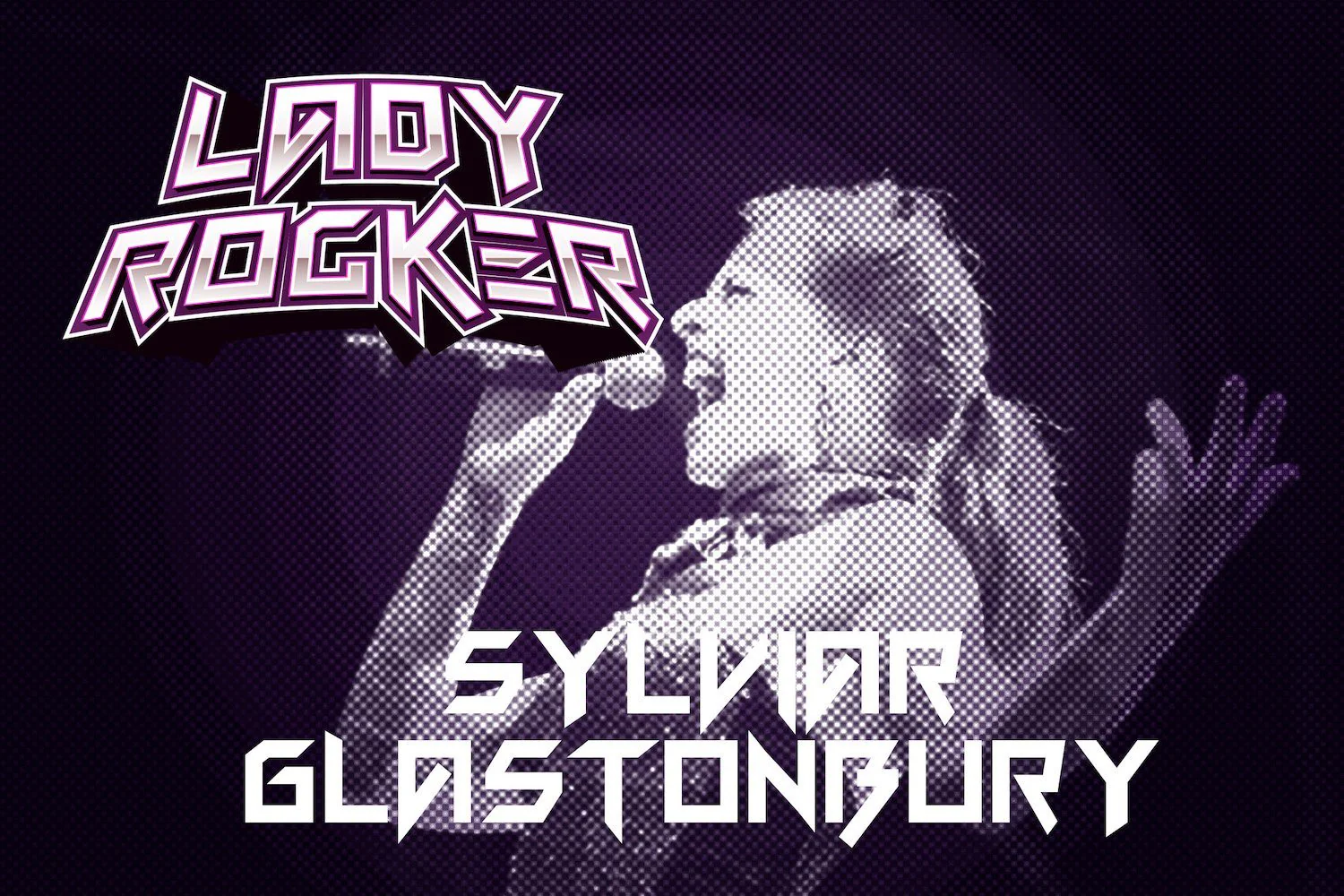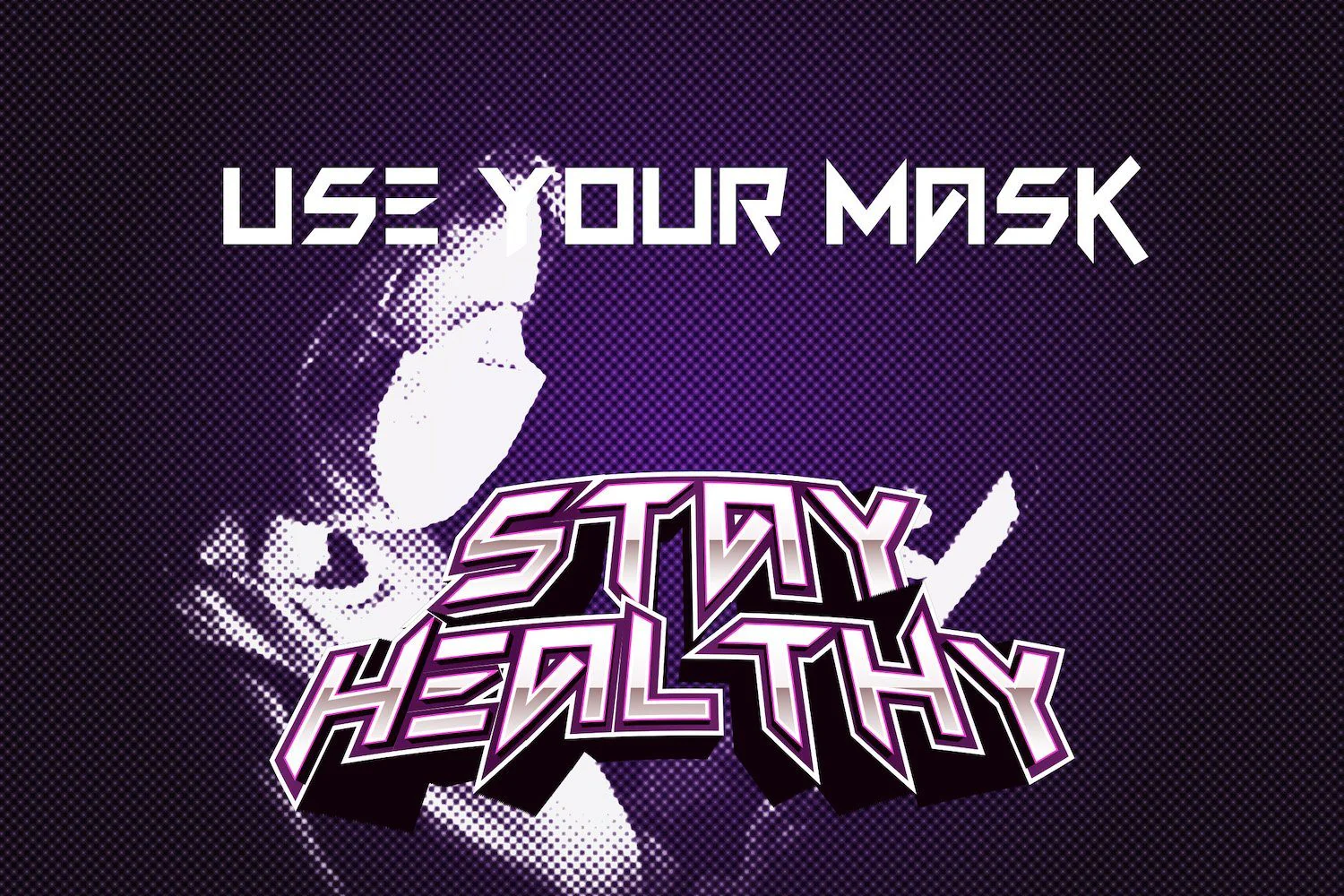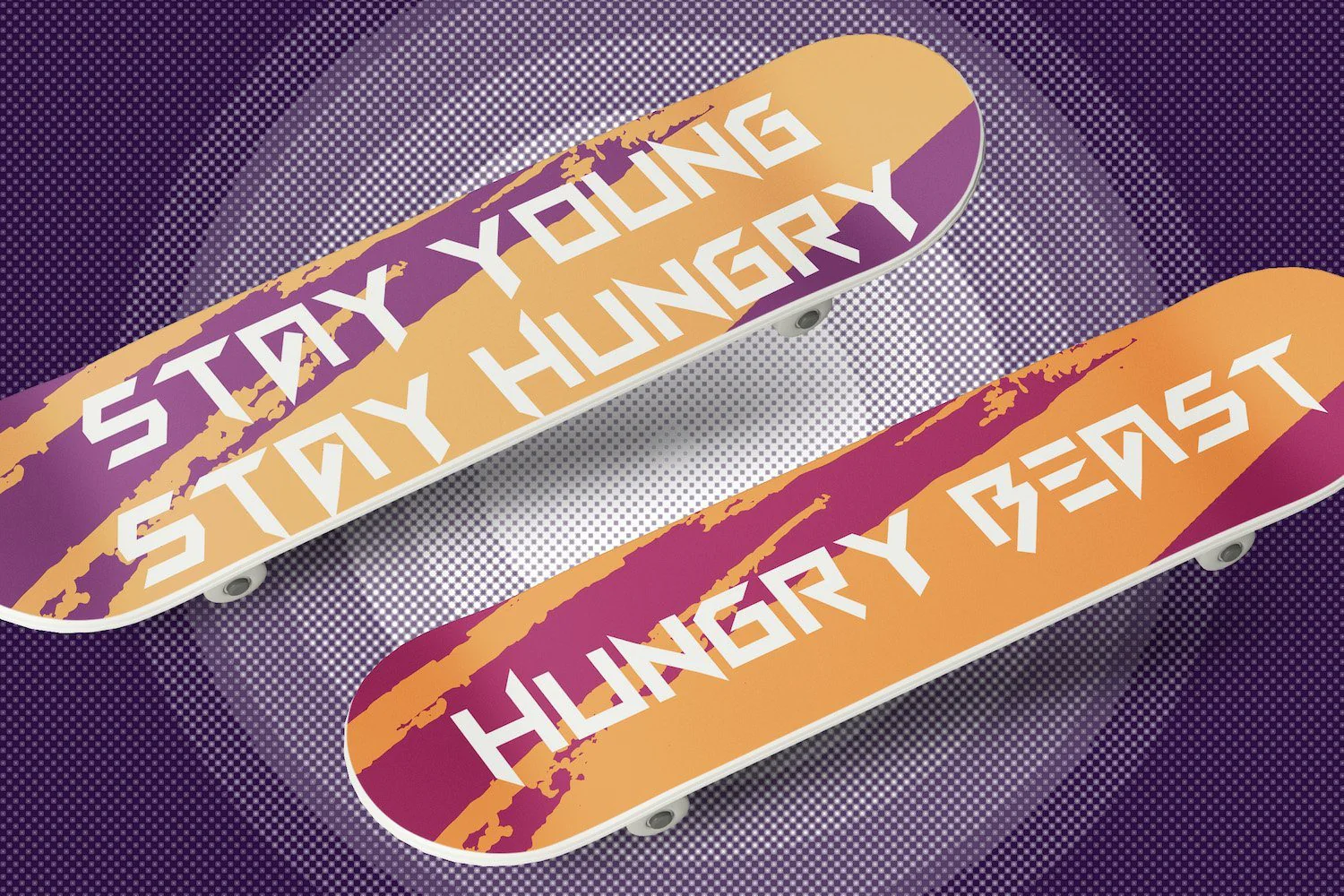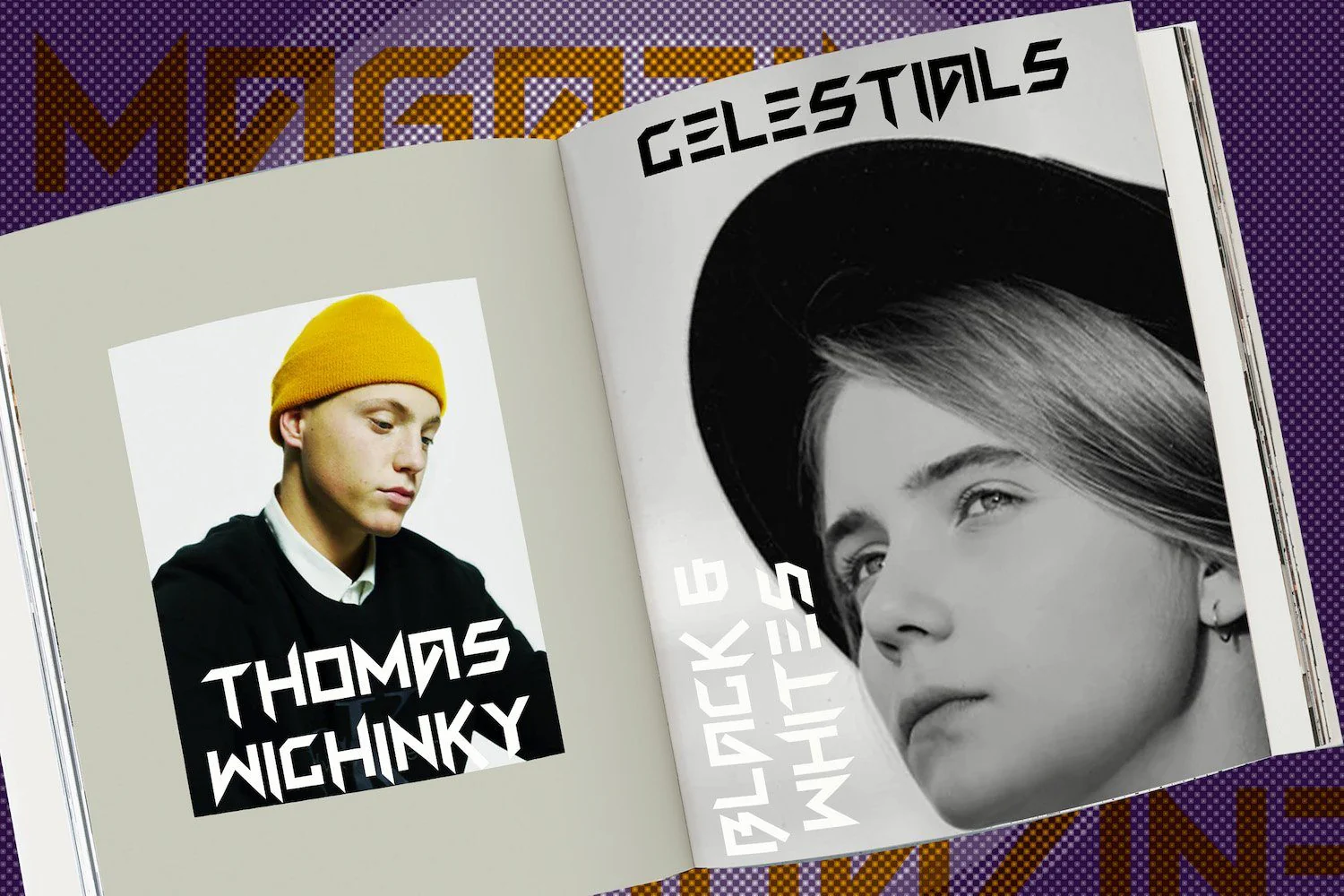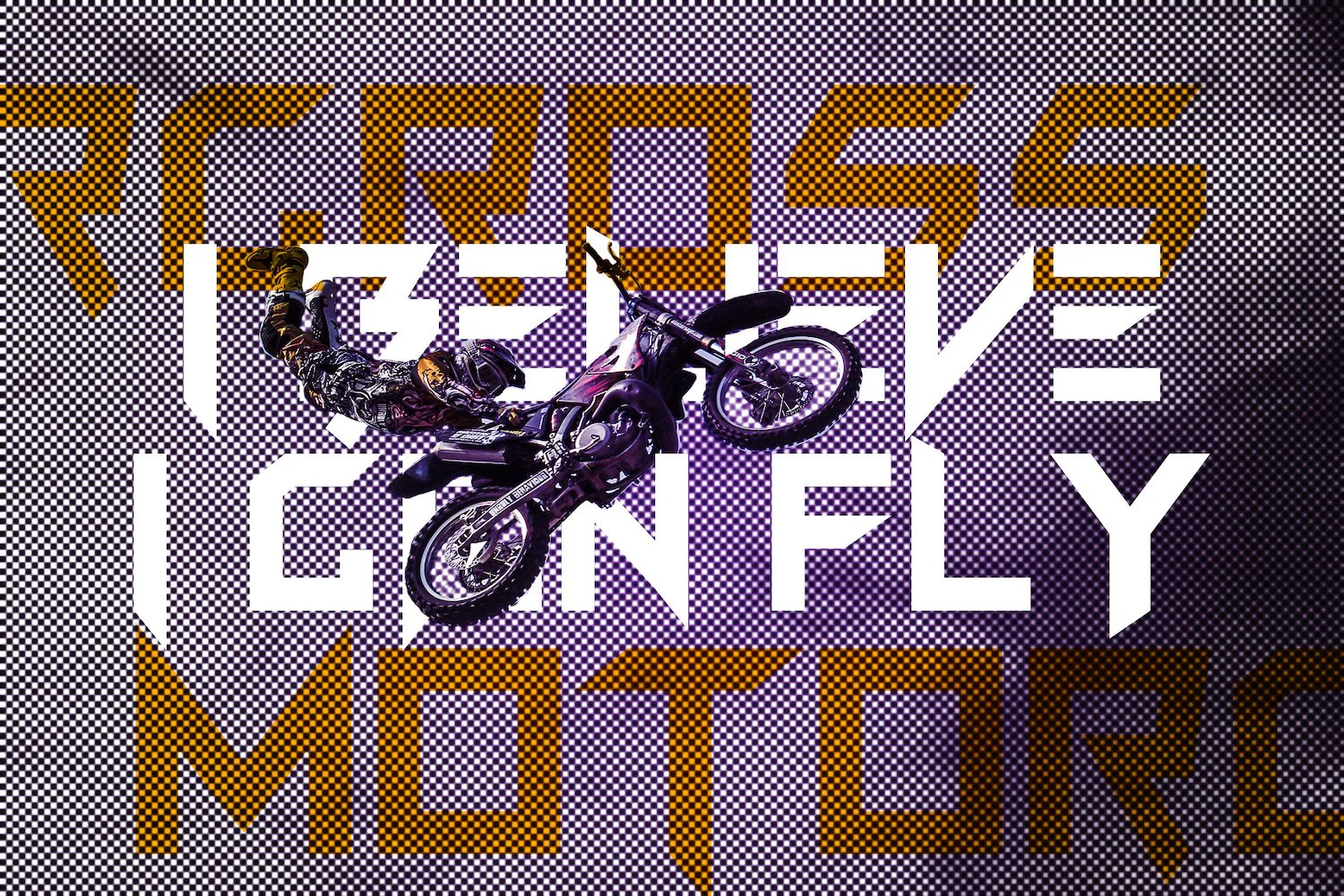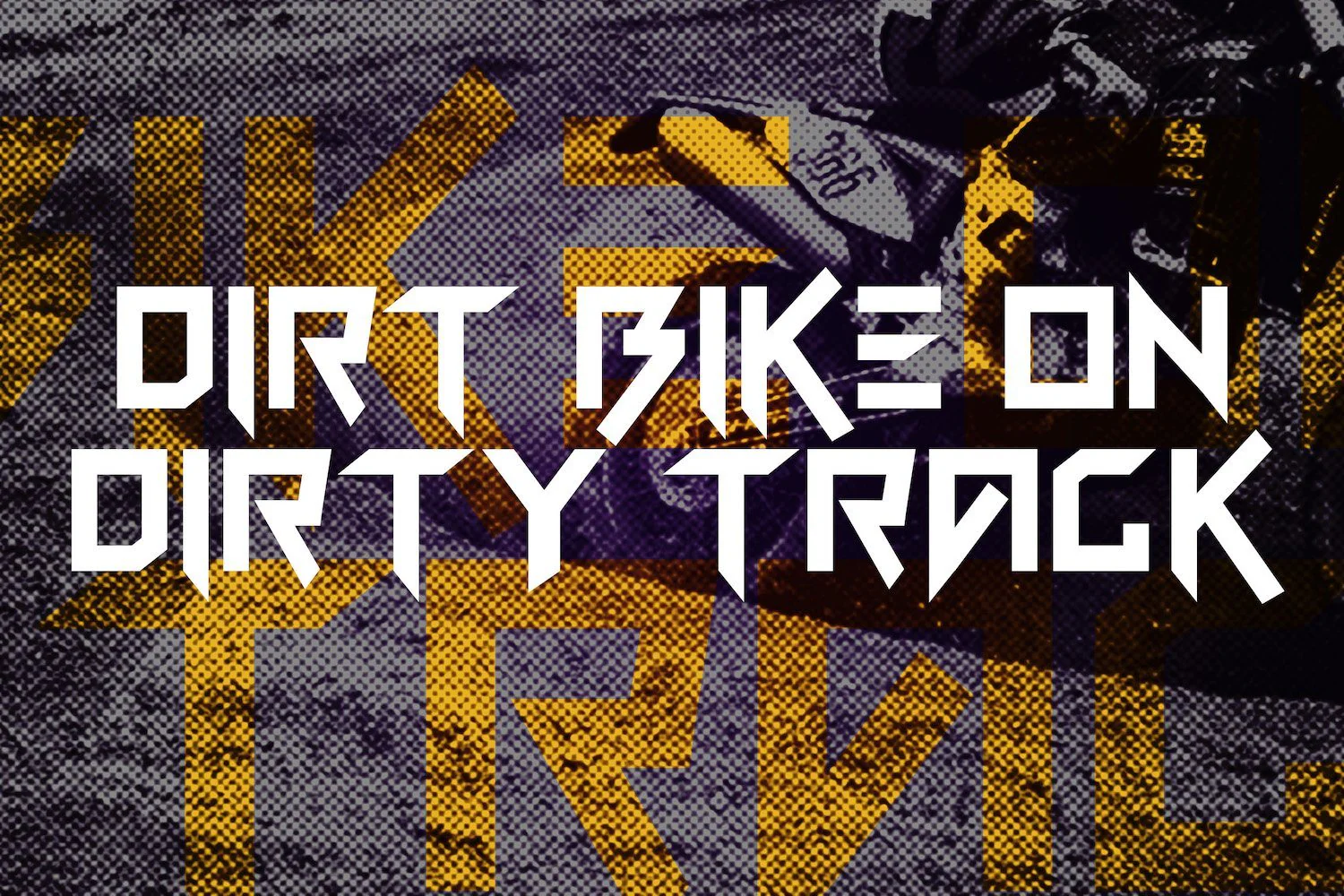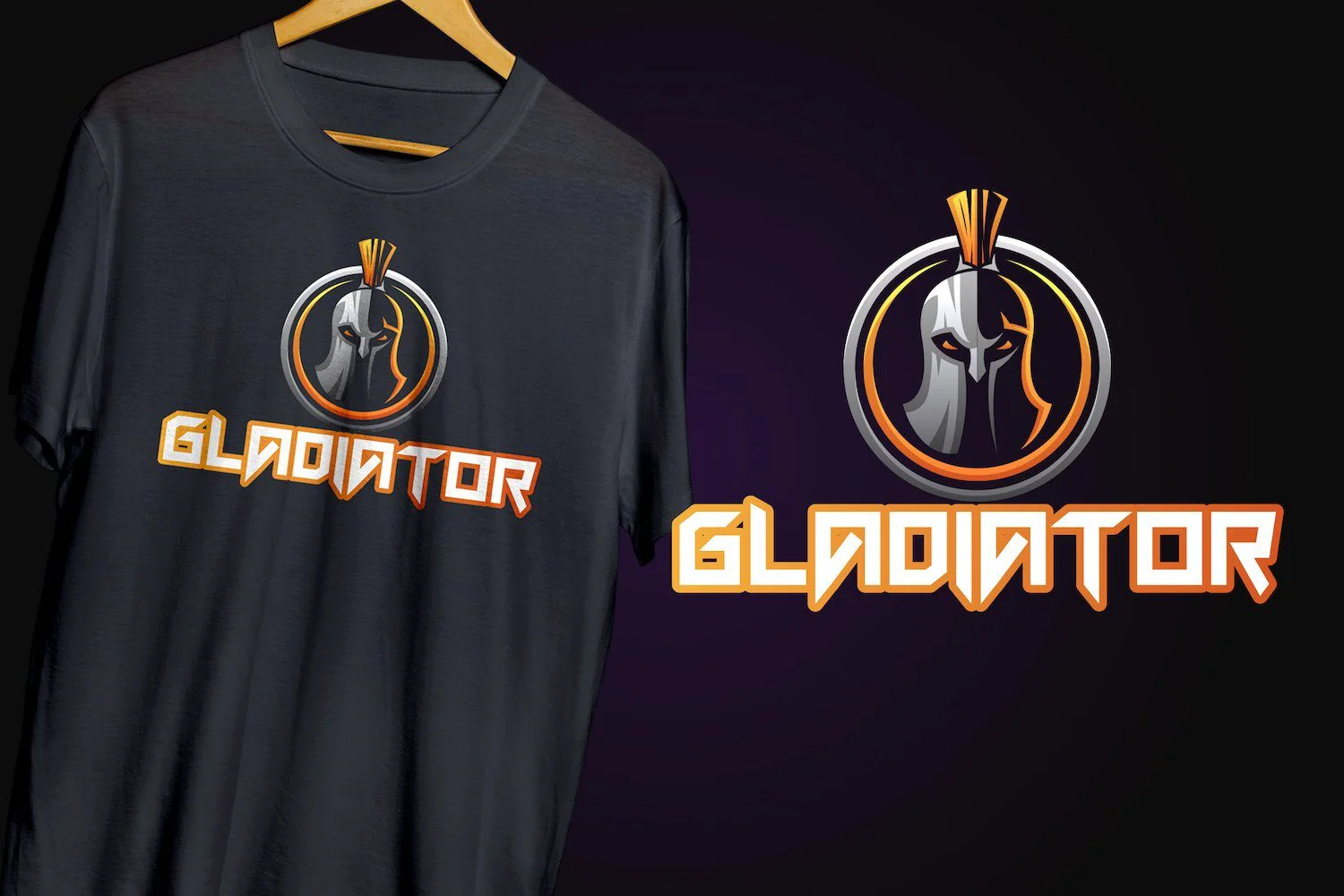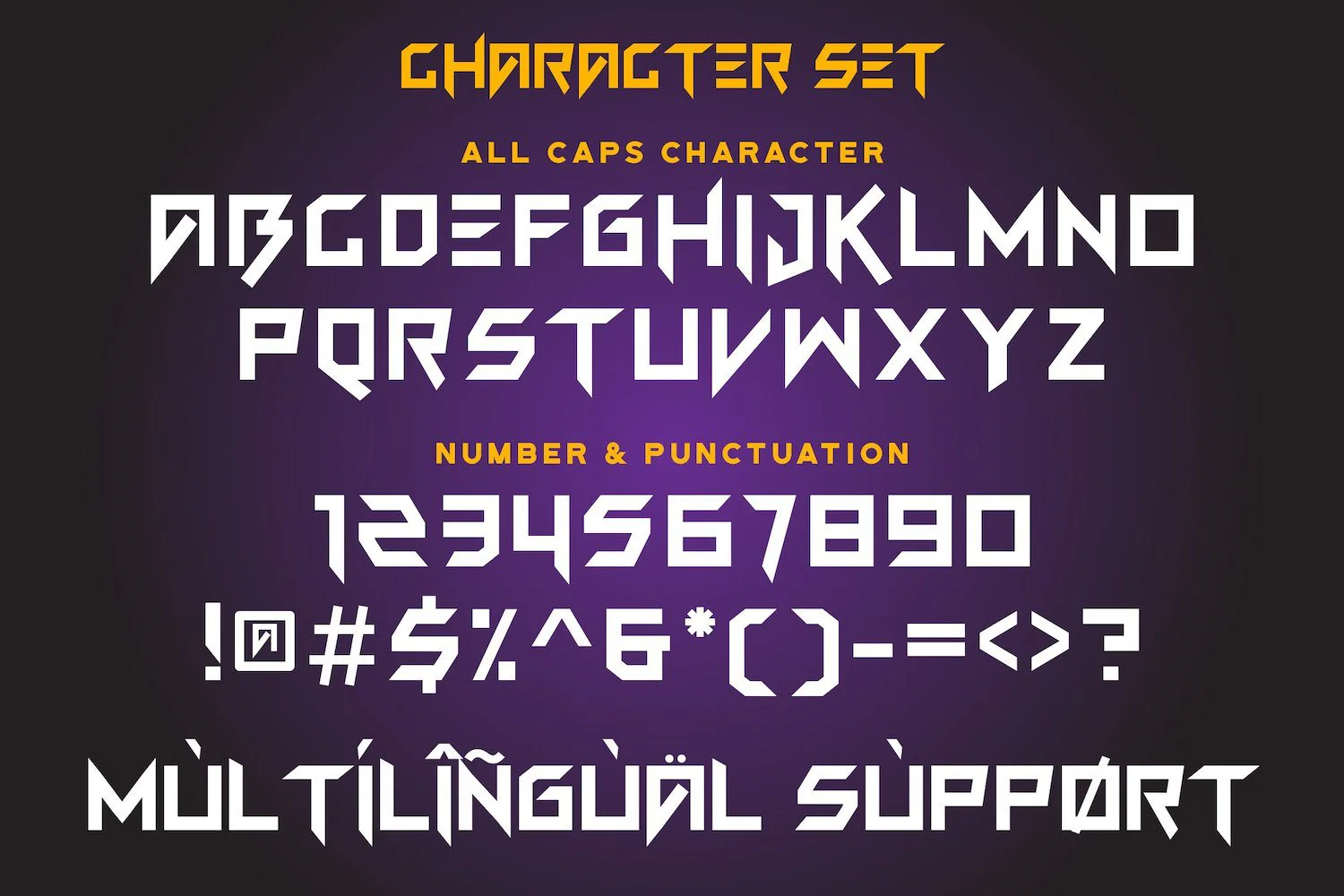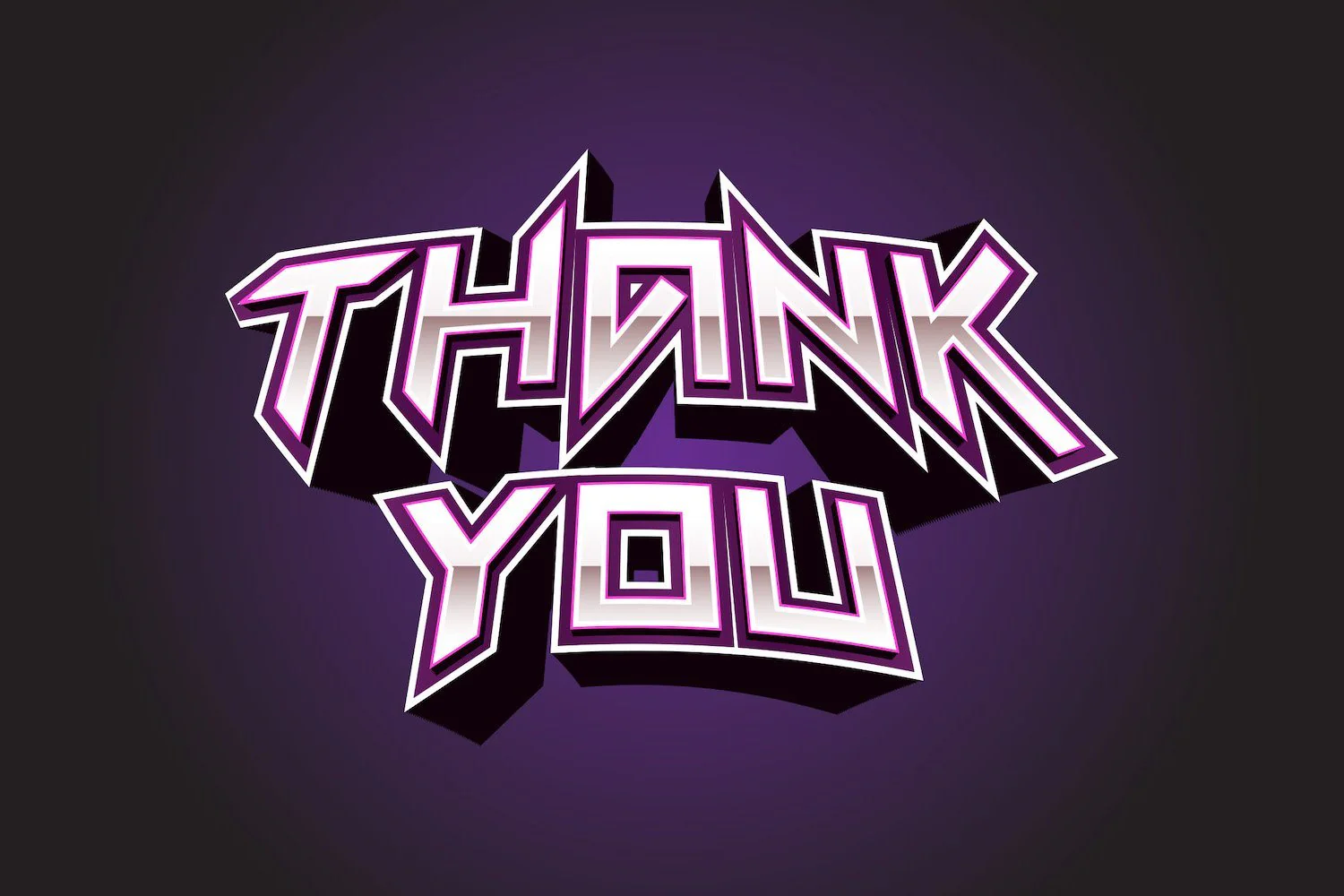
Fun Games - Futuristic Display Font
Introducing Fun Games - Futuristic Display Font
Fun Games is a modern futuristic font with a bold feel. It will add a contemporary update to any design project. On top of everything, it has a techno feel to it, making it ideal for titles, subtitles and UI.